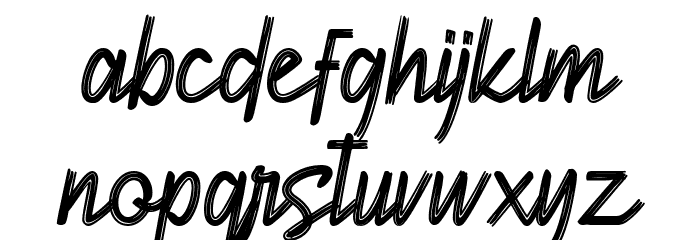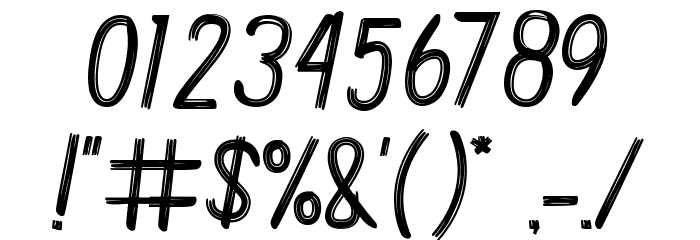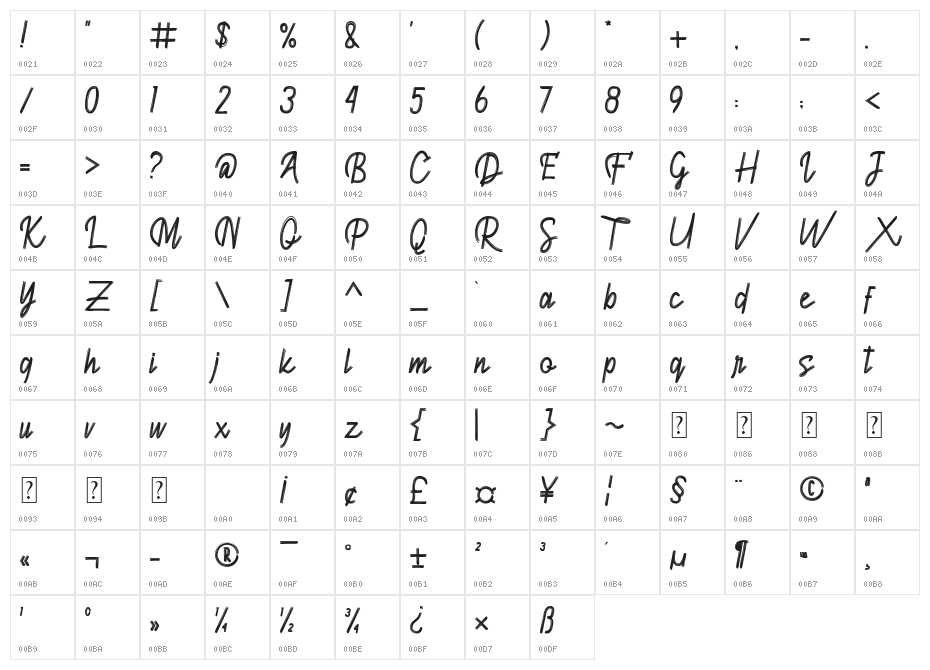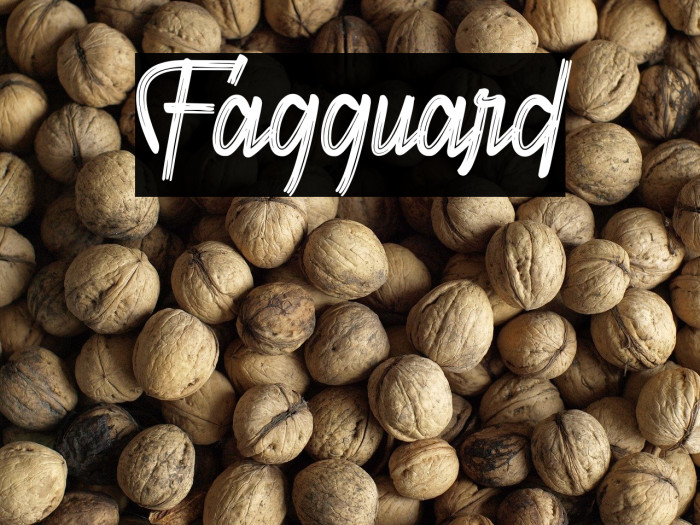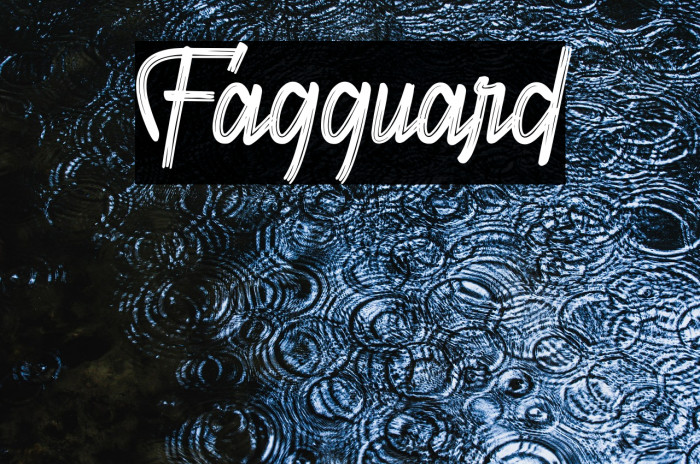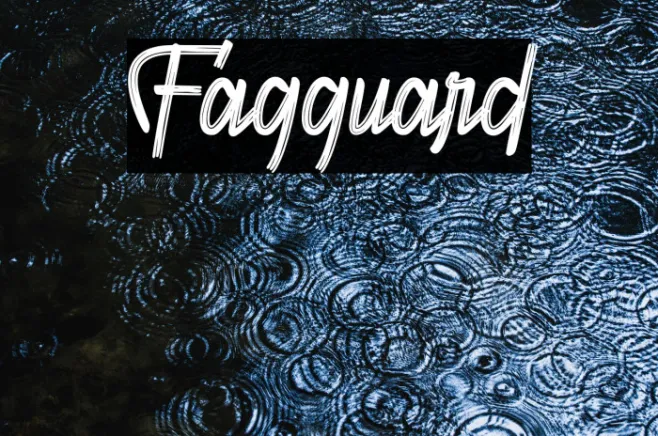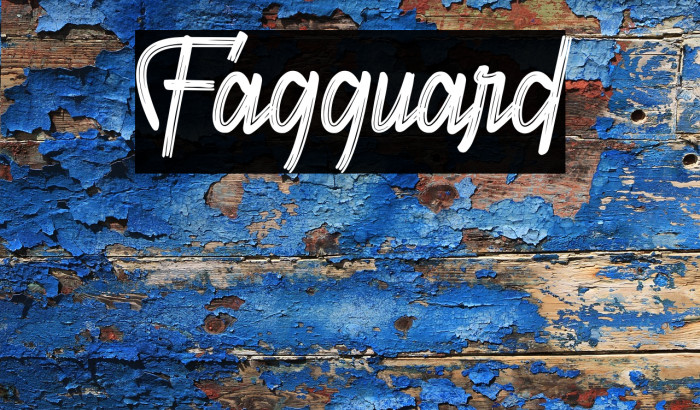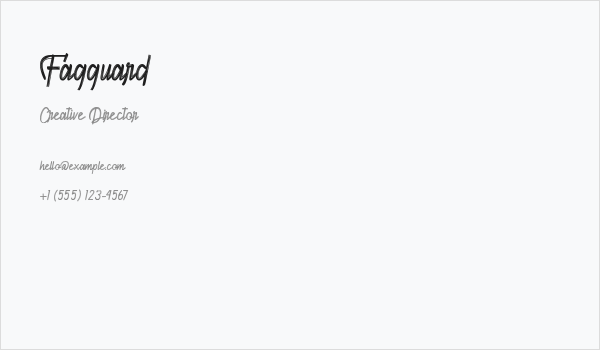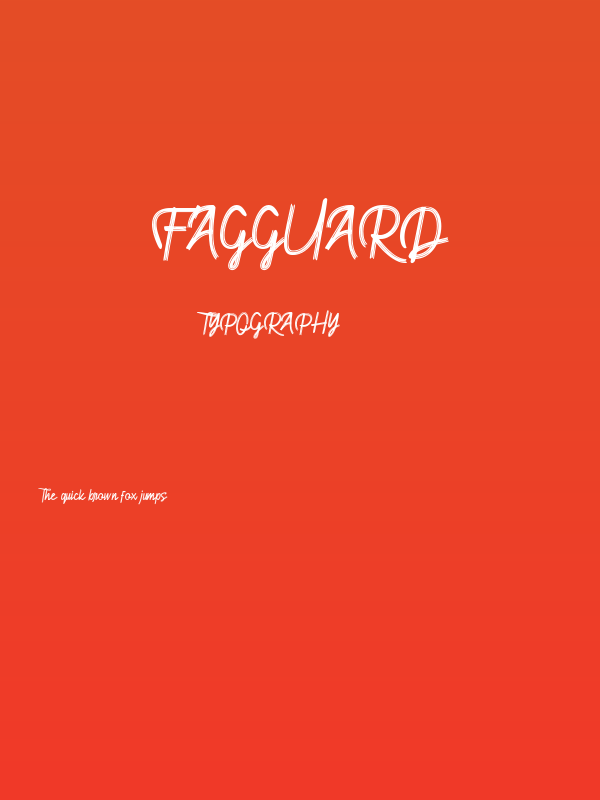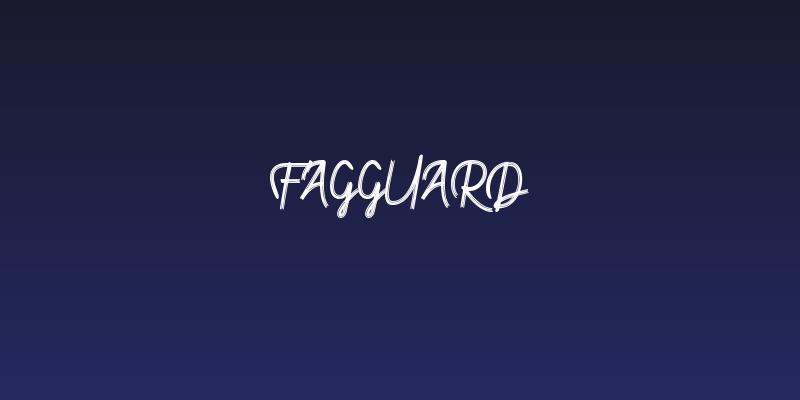
Fagguard Font
This font features a dynamic and energetic script style with a hand-drawn appearance. The letters are characterized by bold, sweeping strokes that give them a sense of motion and flair. The uppercase letters are tall and slightly condensed, while the lowercase letters maintain a consistent flow with a more rounded form. The numerals and special characters follow the same lively style, making them stand out with their unique, artistic flair. The overall design is playful yet sophisticated, suitable for projects that require a personal touch or an expressive statement.
A dynamic, hand-drawn script font with bold, sweeping strokes.
- Proposed Projects: Ideal for branding, invitations, posters, and creative projects that require a personal and artistic touch.